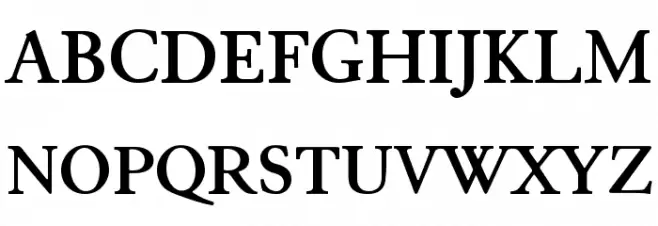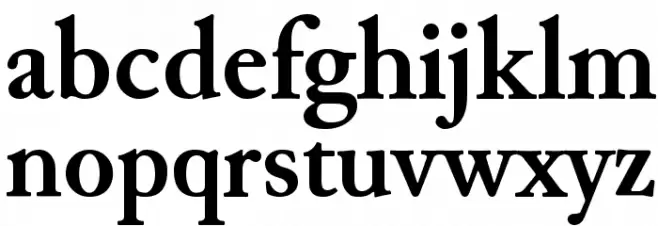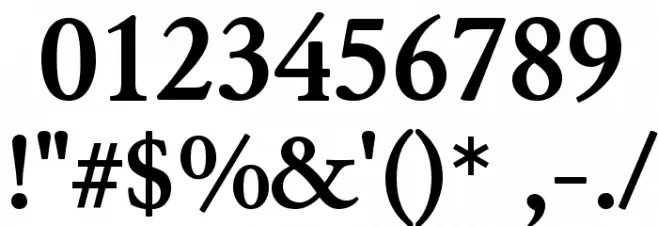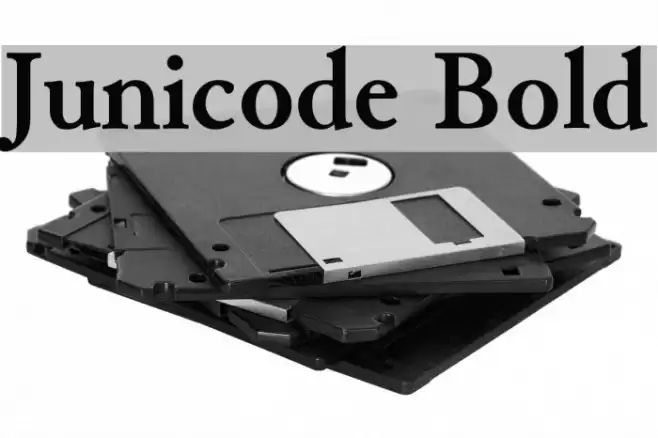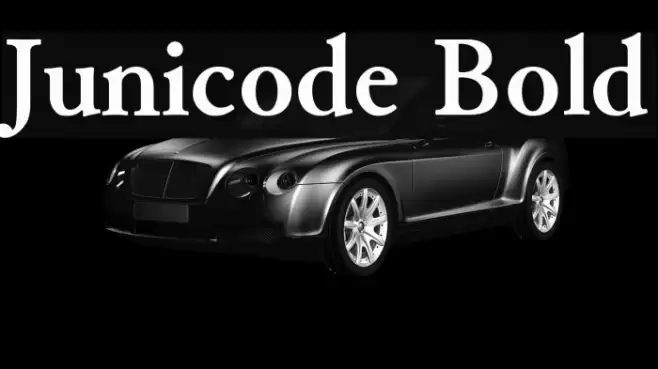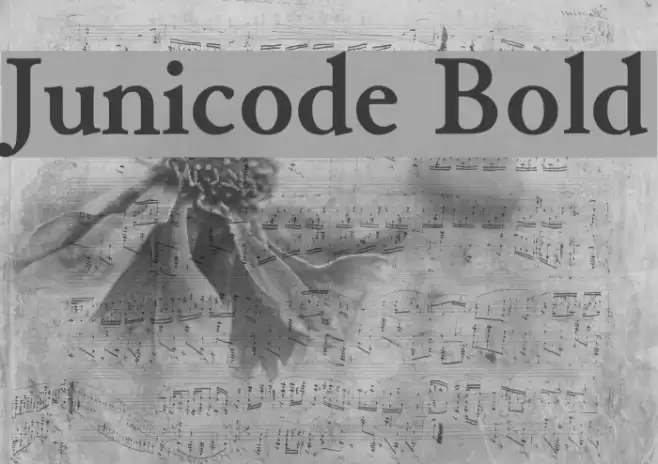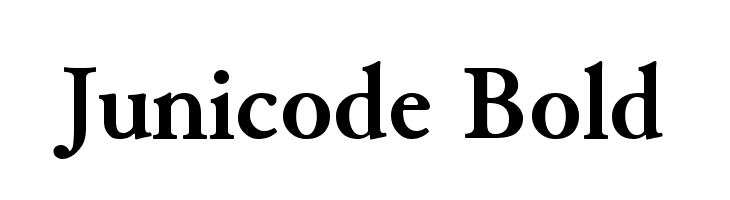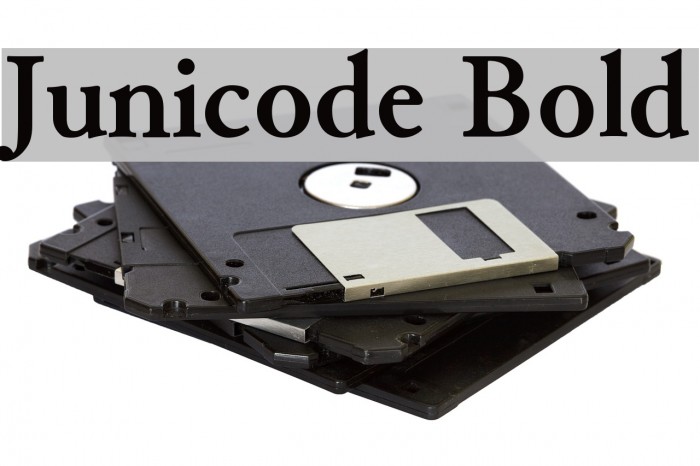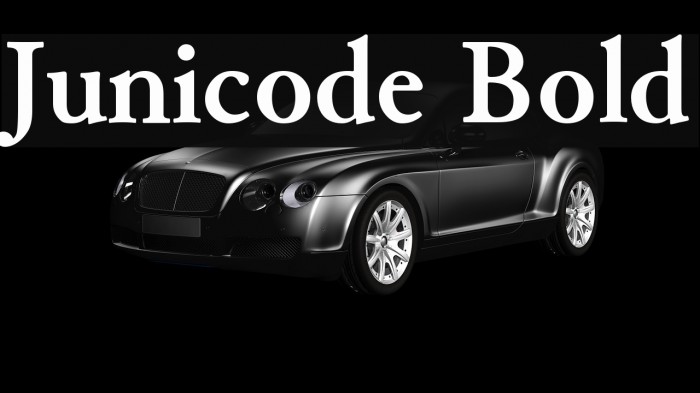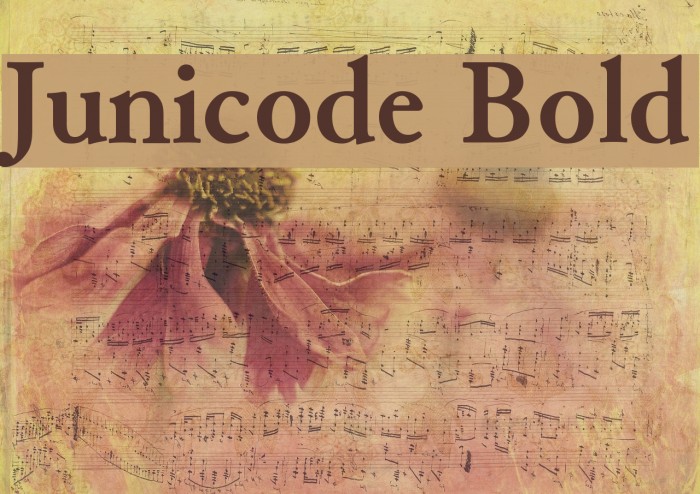
Junicode Bold
This font exhibits a classic serif style with a bold weight, characterized by its strong, authoritative presence. The serifs are pronounced, adding a traditional and scholarly feel to the text. The uppercase letters are well-proportioned, with a slight contrast in stroke thickness that enhances readability. The lowercase letters maintain a consistent style, with rounded forms and clear distinctions between each character. Numerals are designed to align well with the alphabet, ensuring uniformity across different text elements. Special characters are crafted with attention to detail, providing a cohesive look throughout. This font is ideal for projects that require a touch of elegance and formality.
A bold, classic serif font with pronounced serifs and a scholarly appearance.
- Proposed Projects: Ideal for academic publications, historical documents, formal invitations, and book covers.
- Category: Serif
- Overall Style: Classic